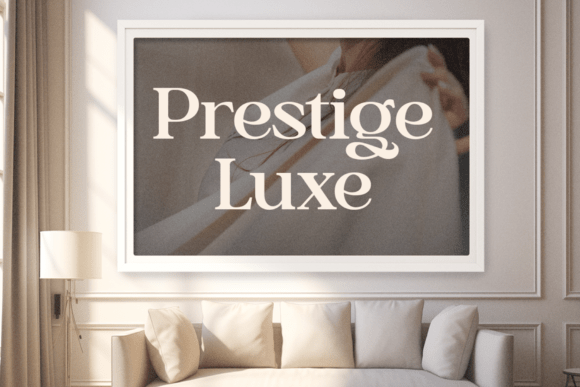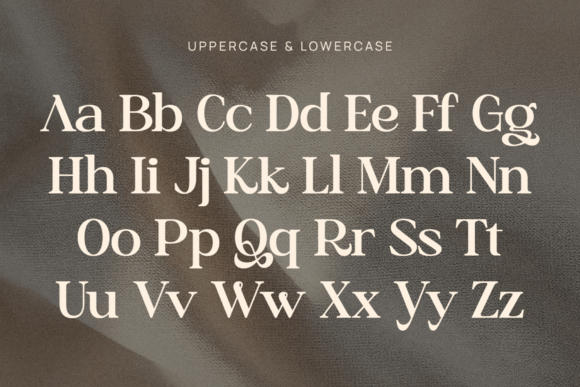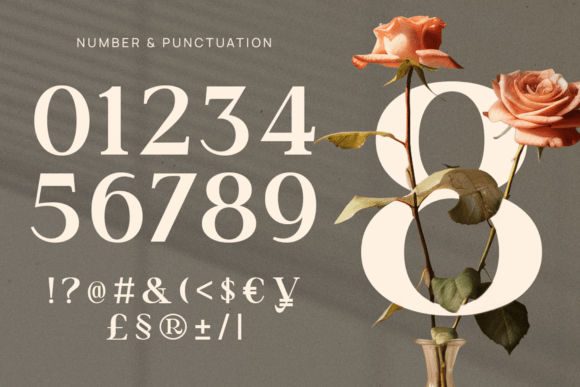
Introduction to Carsen Font
As designers, we’ve all been there – staring at a blank canvas, searching for the perfect font to bring our creative vision to life. It’s that moment of inspiration, when the right typography can elevate our design from good to great, that we often find ourselves scouring the web for the perfect font. And that’s exactly where the Carsen Font comes in – a stunning luxury display serif font that’s sure to make your designs stand out.
With its smooth curves, stylish contrast, and modern editorial look, the Carsen Font is the ultimate design resource for any creative project. Whether you’re building a luxury brand, creating a fashion editorial, or designing a high-end promotional piece, this font is sure to bring a touch of sophistication and elegance to your work.
Carsen Font Key Features
- High-quality, professional font design suitable for various creative projects
- Unique, modern design with a creative flair, perfect for adding a touch of elegance to various design projects
- Perfect for use in graphic design, digital art, and publishing, making it a valuable addition to any design library
Honest Review: Carsen Font
As a designer, I’m always on the lookout for high-quality design resources that can elevate my creative projects. I recently stumbled upon the Carsen Font, and I’m excited to share my honest review.
Here are some things that work well for me: ✨
- Beautiful, modern design: The Carsen Font has a sleek and modern feel that makes it perfect for contemporary design projects.
- Wide range of weights: The font comes in a variety of weights, making it easy to customize and match the tone of your project.
However, there are some limitations to consider: ⚠️
- Transparency issues: Some users have reported issues with the font’s transparency, particularly when using it on a transparent background.
- Limited language support: The Carsen Font may not be suitable for projects that require language support beyond English.
Overall, I’m impressed with the Carsen Font’s high quality and versatility. While it may have some limitations, it’s a great addition to any designer’s toolkit. If you’re looking for a modern, stylish font for your next creative project, the Carsen Font is definitely worth considering.
The Carsen Font is ideal for various design projects, including logos, brochures, and business cards. Its high-quality design and transparent background make it perfect for creative projects that require a touch of elegance.